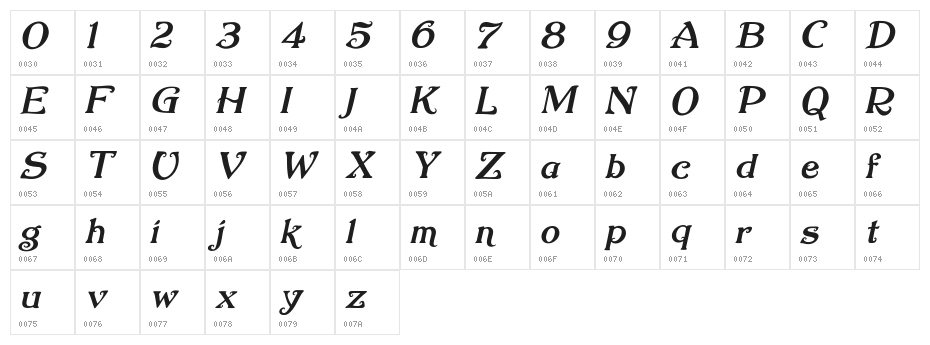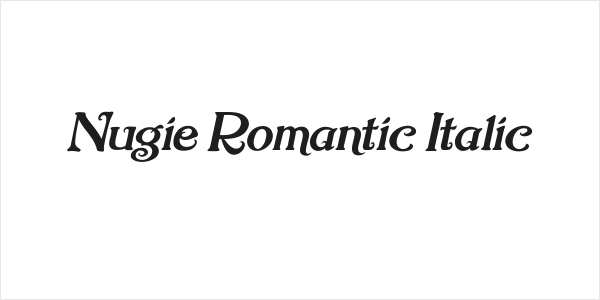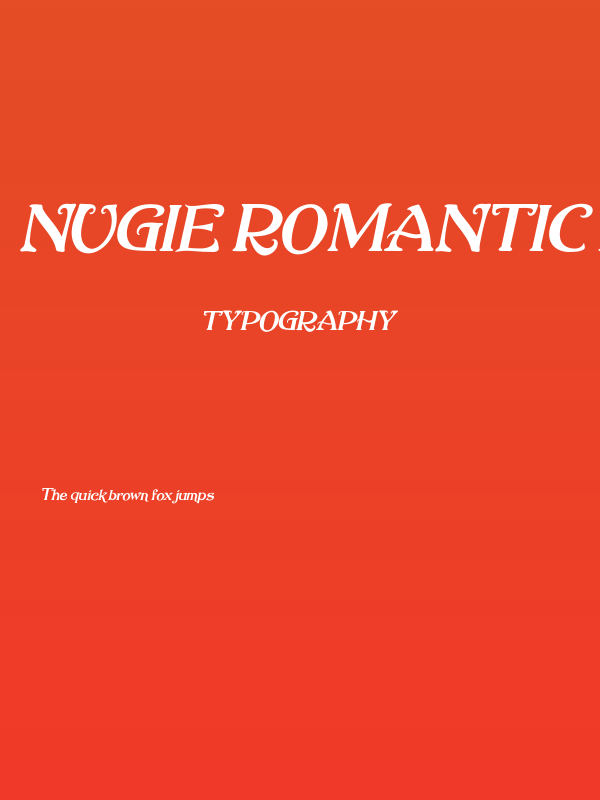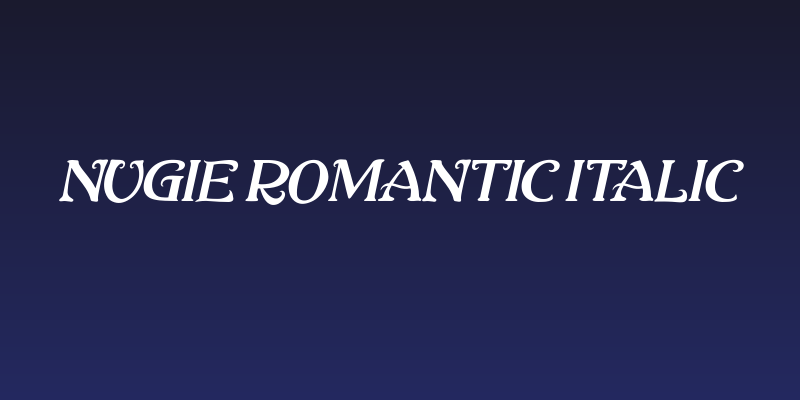
Nugie Romantic Italic Font
Nugie Romantic Italic Description
This font features an elegant and flowing italic style, characterized by its smooth curves and distinctive serifs. The uppercase letters exhibit a graceful slant, while the lowercase letters maintain a consistent rhythm, enhancing readability. The numerals are designed with a similar flair, ensuring a cohesive look across all characters. Special characters are thoughtfully integrated, maintaining the font's overall aesthetic. The font's romantic and sophisticated appearance makes it suitable for a variety of creative applications.
| Overall Style | Romantic |
| Use Case | Headlines, Invitations, Branding |
| Proposed Projects | Ideal for wedding invitations, greeting cards, elegant branding, and editorial design. |